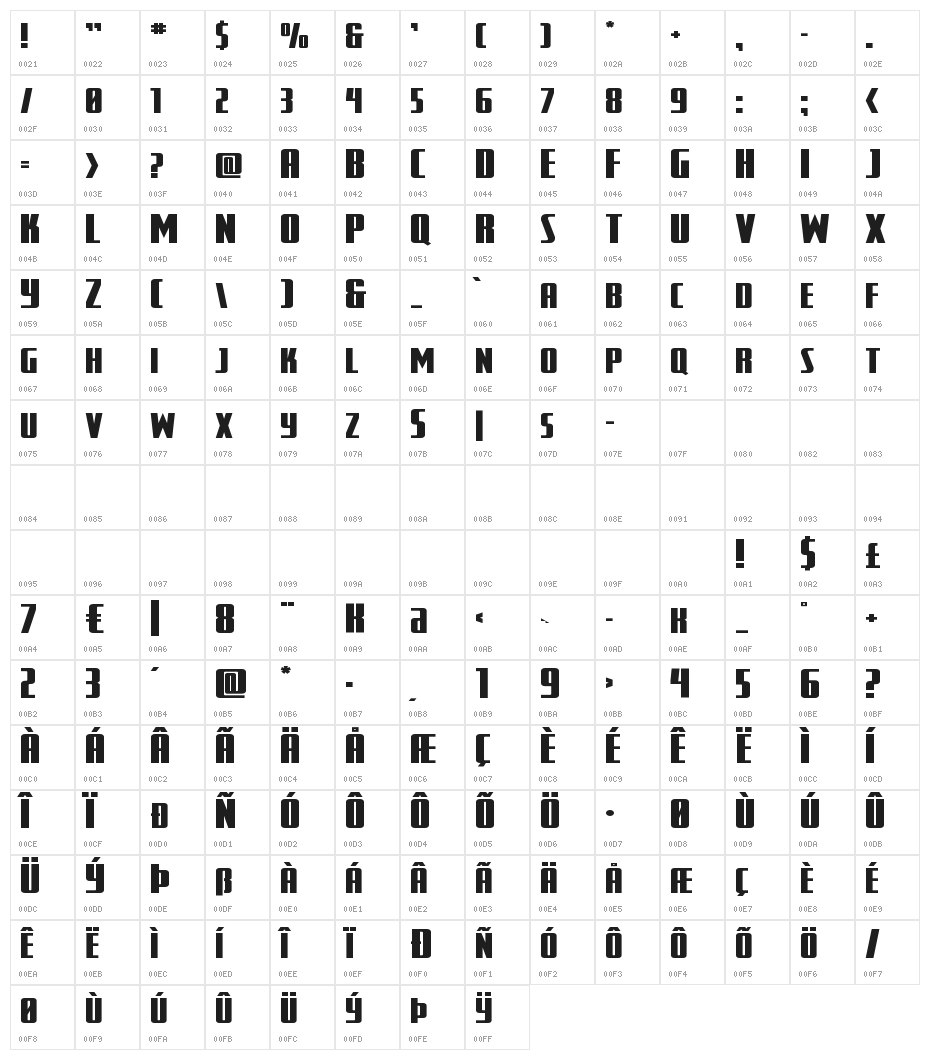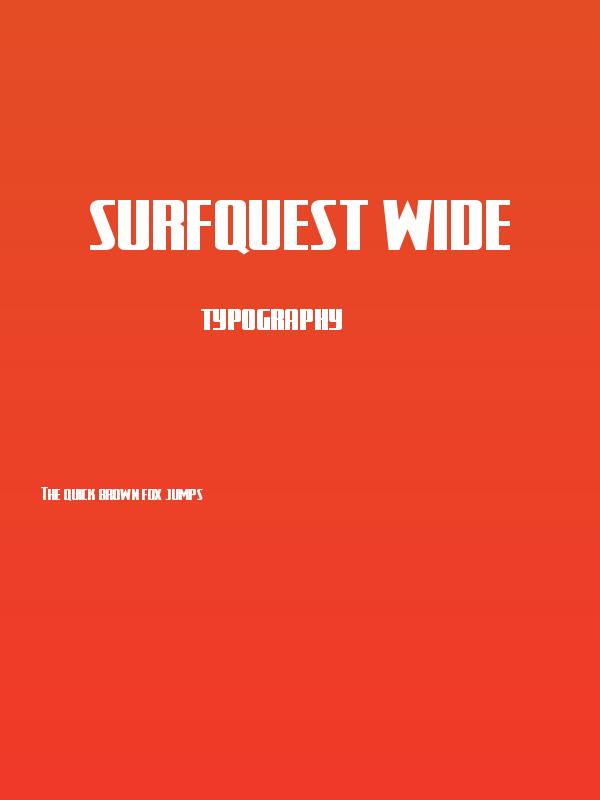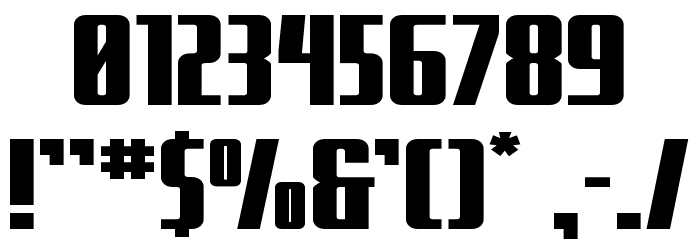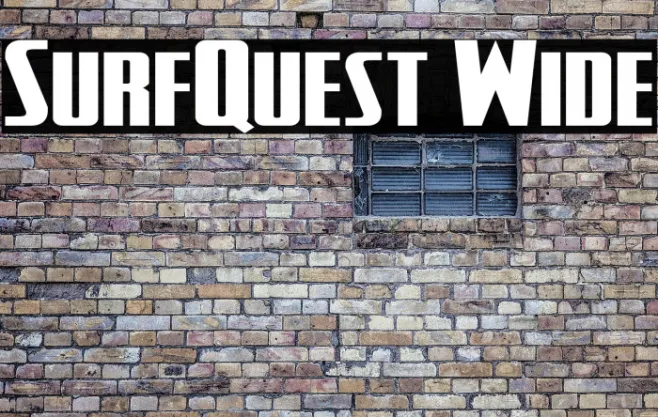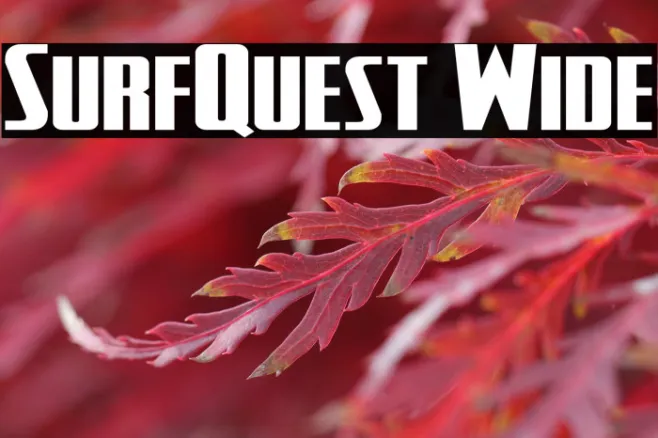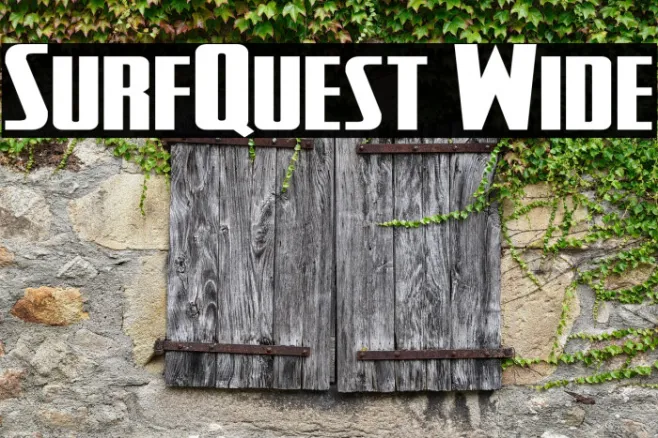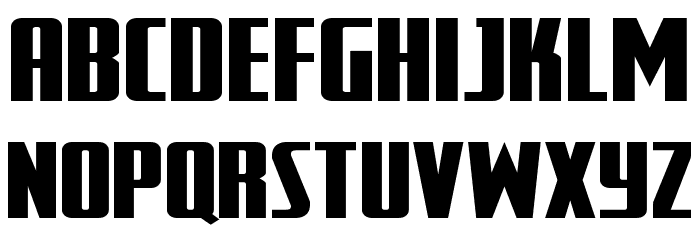
SurfQuest Wide Font
SurfQuest Wide Description
This font features a bold and impactful design with strong geometric shapes and a wide stance. The uppercase letters are characterized by their thick, uniform strokes and angular edges, giving them a modern and assertive appearance. The lowercase letters maintain the same boldness, ensuring consistency throughout the typeface. The numerals are equally robust, with a clear and legible structure. Special characters are designed to match the bold and wide aesthetic, making them suitable for attention-grabbing designs. This font is ideal for projects that require a strong visual presence.
| Proposed Projects | Ideal for branding, posters, headlines, and any design requiring a strong visual impact. |